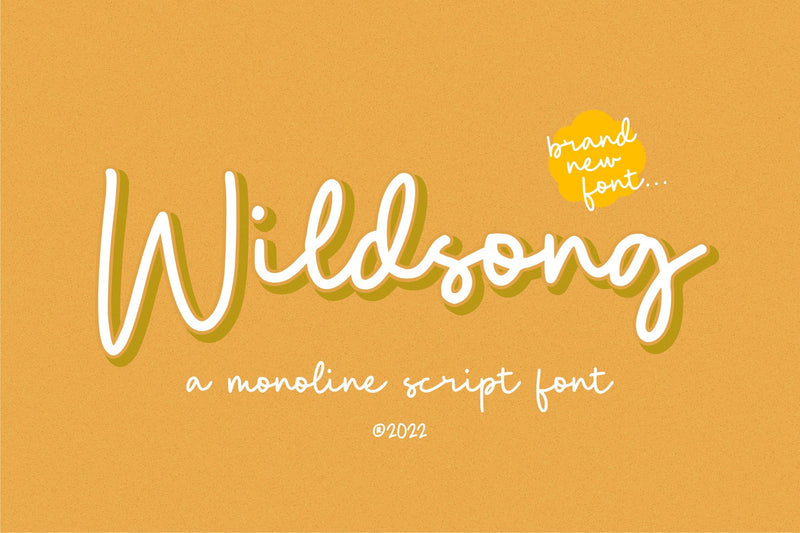
Wildsong Monoline Script Font
Proudly Present, Wildsong Font.
Wildsong is a Monoline Script Font. This font is suitable for use in your design projects. for logotype, photography, wedding invitations, advertisements and any project that requires a monoline script font.